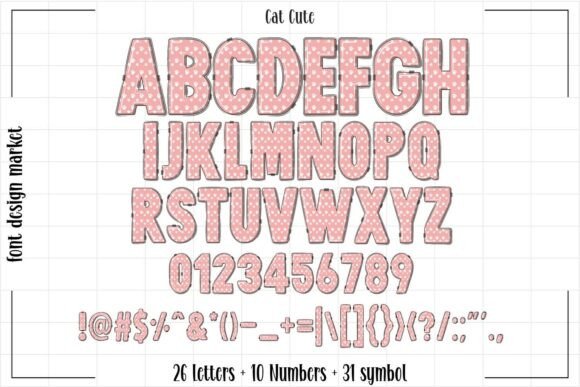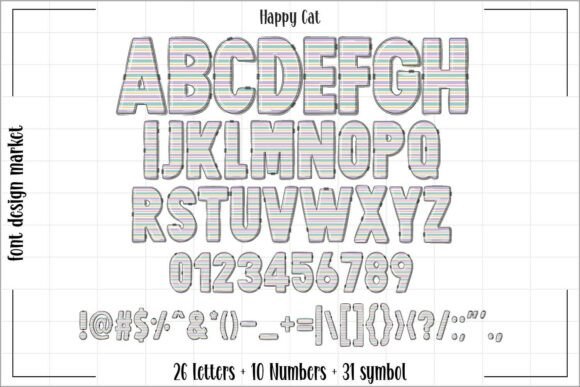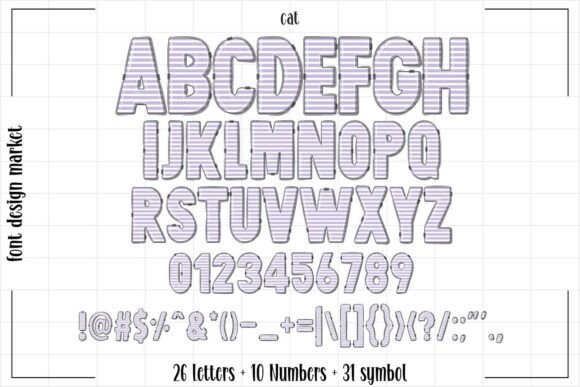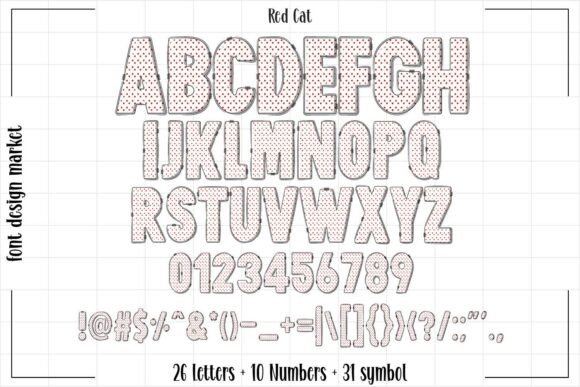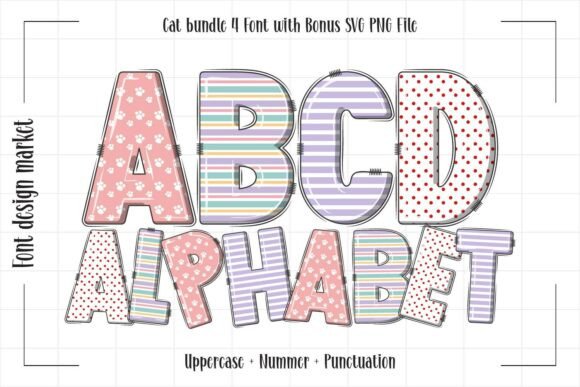
The Purrfect Font: A Comprehensive Guide to Cat Font
I’ll never forget the time I was working on a design project for a client’s cat-themed merchandise, and I just couldn’t find the right font. I scoured the internet, tried out countless fonts, but none of them seemed to capture the playful, whimsical spirit of a cat. That was until I stumbled upon Cat Font. ✨
Cat Font is an amazing and fresh color font with a charming personality. With its adorable cute cat theme, this font will effortlessly turn any design project into a stand-out! In this article, I’ll share my honest review of Cat Font, provide a practical guide on how to use it, and explore similar fonts and alternatives.
• ✨ Adorable cat theme that’s perfect for cat lovers and design projects
• ✅ Fresh and unique design that’s sure to stand out
• 🎉 Color version available for added creativity and visual interest
The Story Behind Cat Font
Cat Font was designed by a team of creatives who are passionate about cats and design. The font was inspired by the playful, curious, and affectionate nature of cats. The designers wanted to create a font that would capture the essence of a cat’s personality and make it accessible to designers and crafters around the world.